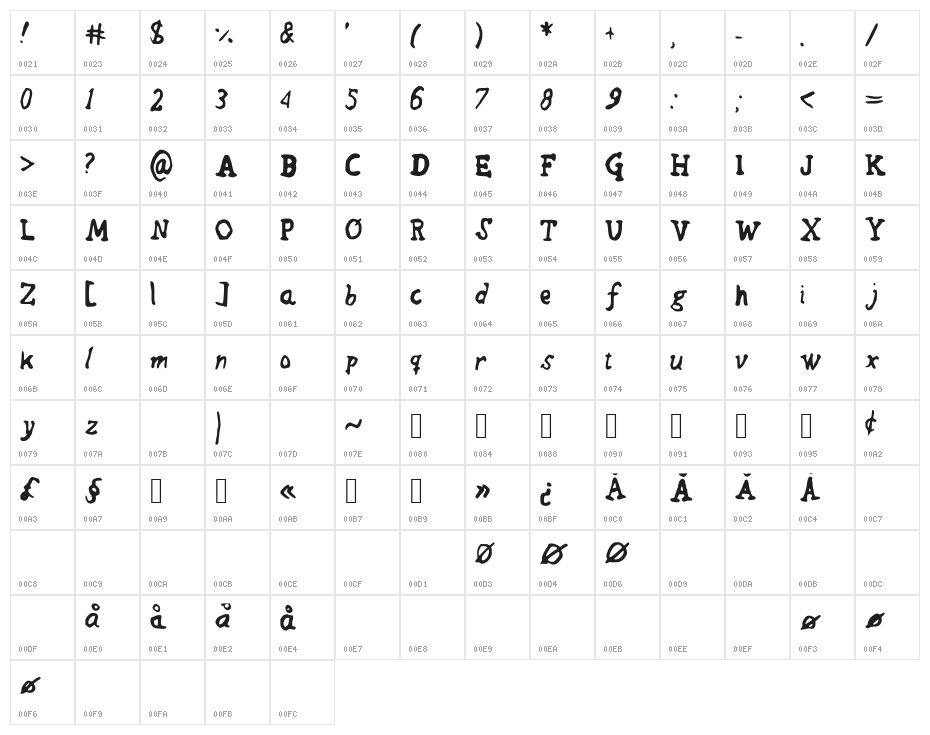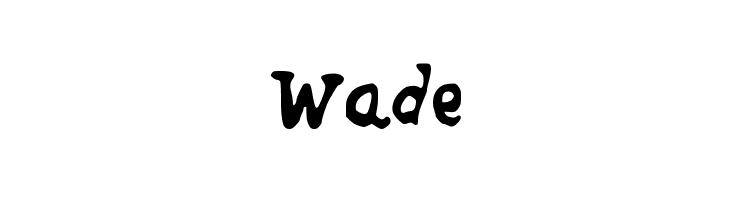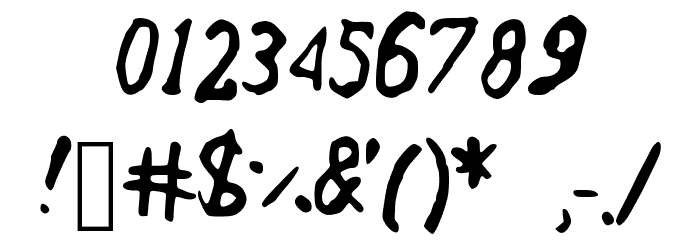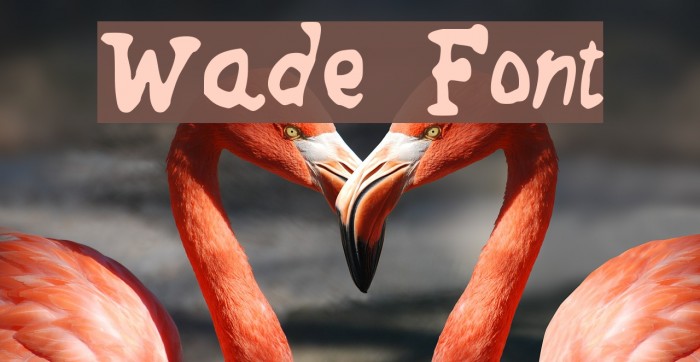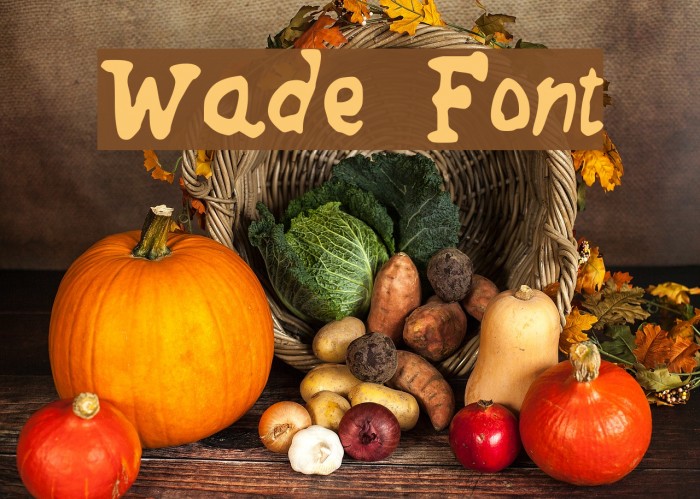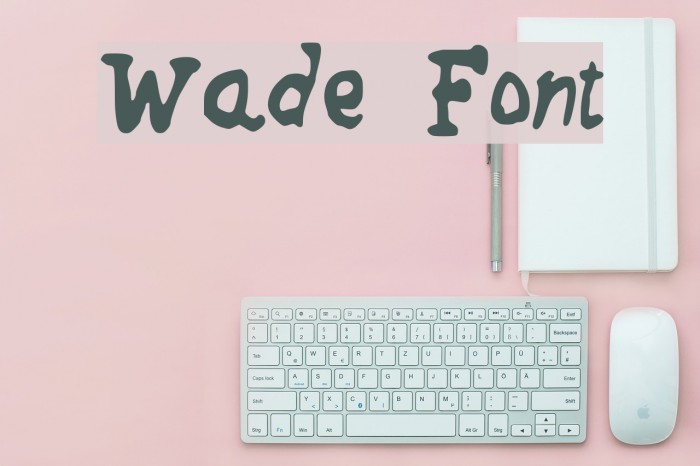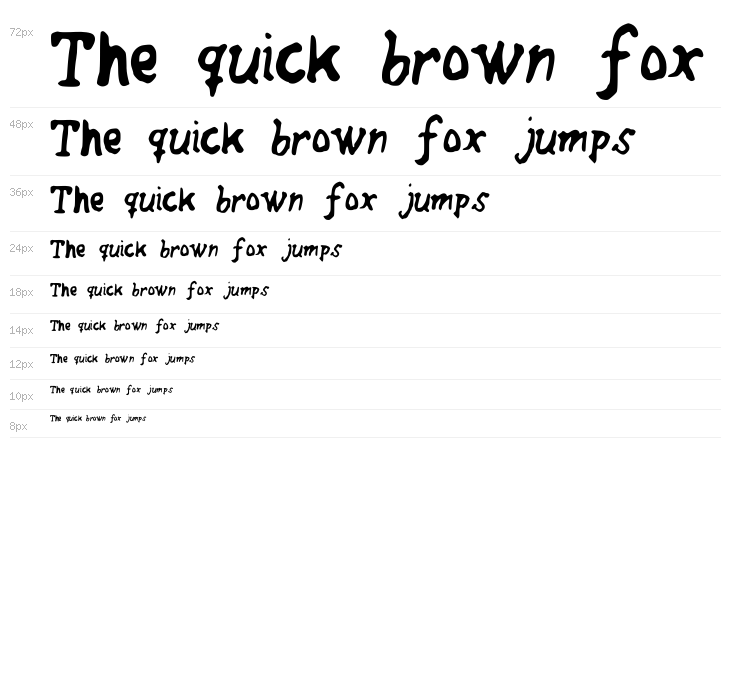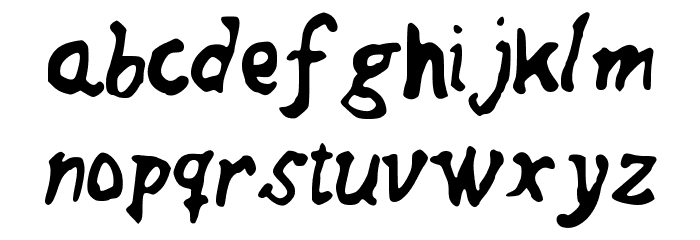
Wade Font
Wade Description
This font features a playful and bold design with a hand-drawn aesthetic. The characters have a whimsical, uneven quality, giving them a lively and dynamic appearance. The uppercase letters are robust and slightly irregular, while the lowercase letters maintain a consistent style with a touch of flair. Numbers and special characters follow the same playful theme, making the font suitable for creative and informal projects. The strokes are thick and rounded, adding to the font's friendly and approachable feel.
WADE UPPERCASE
WADE LOWERCASE
WADE OTHER CHARS
| Proposed Projects | Ideal for children's books, playful branding, casual invitations, and creative posters. |